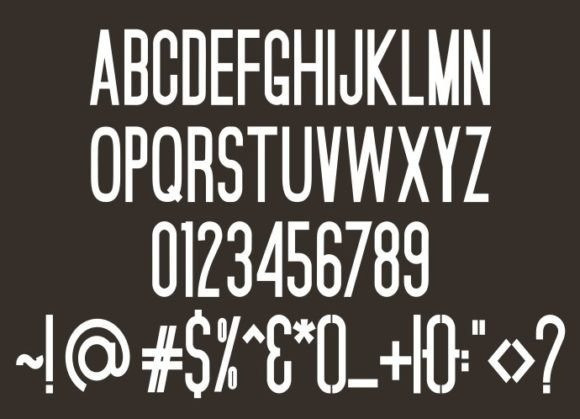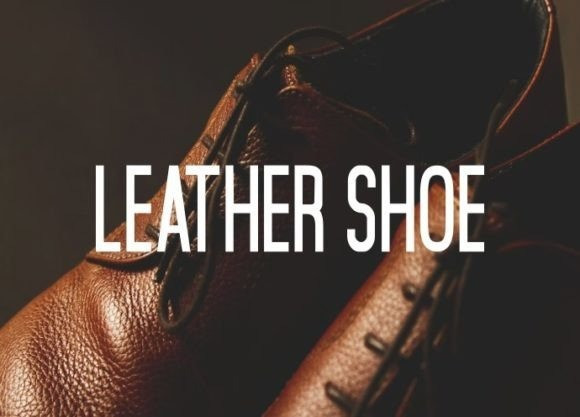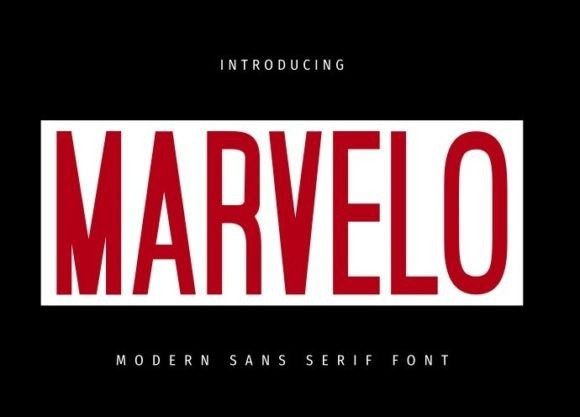
Marvelo Font
Marvelo Sans Serif Font is a simple sans serif font. This beautiful and professional typeface is suitable for film posters, headlines, block letters, subheadings, logo designs, and so much more.